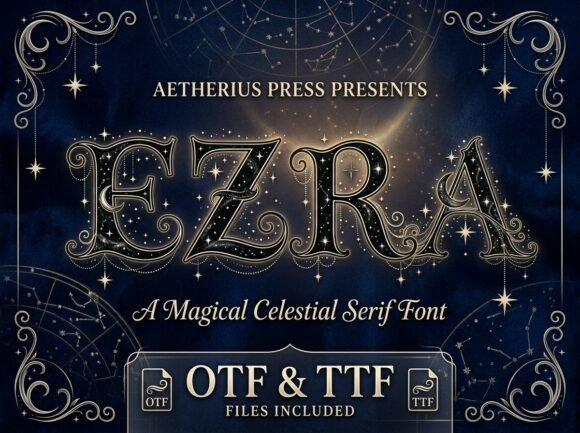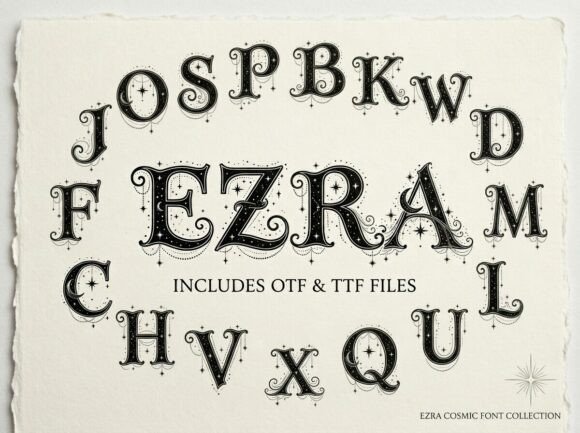
Harness the Magic of the Cosmos with Ezra Font
Are you a designer, craftsperson, or spiritual entrepreneur looking for a unique and captivating font to elevate your brand or project? Look no further than Ezra, a premium celestial star alphabet that embodies the mystery and wonder of the universe. This enchanting typeface is specifically designed for divination, mystical branding, and high-end invitations, making it the perfect choice for professional tarot decks, independent astrology apps, mystical jewelry packaging, and atmospheric logo designs.
The Celestial Inspiration Behind Ezra
Ezra’s design is inspired by the night sky, with classic, elegant letterforms filled with a deep midnight-blue “starry sky” texture. The font’s texture is reminiscent of a clear evening sky, twinkling with stars and constellations. The letterforms themselves are carefully crafted to evoke a sense of mysticism and wonder, with intricate linework and subtle nuances that give the font a sense of depth and dimensionality.
Unique Features of Ezra Font
Ezra’s unique features set it apart from other fonts on the market. Some of its key characteristics include:
- Hand-drawn constellations: Each letterform features hand-drawn constellations that add an extra layer of magic and mystery to the font.
- Crescent moons and shimmering stardust: Delicate crescent moons and shimmering stardust accents add a touch of whimsy and wonder to the font.
- Ethereal glow: Ezra’s font has an ethereal glow that seems to shimmer and shine on the page.
- Intricate linework: The font’s intricate linework gives it a sense of depth and dimensionality, making it perfect for high-end designs.
Perfect for Mystical and Spiritual Projects
Ezra is specifically designed for projects that require a touch of mysticism and wonder. Some examples of projects that Ezra is well-suited for include:
- Professional tarot decks: Ezra’s celestial inspiration and mystical vibe make it a perfect fit for professional tarot decks and other forms of divination.
- Independent astrology apps: Ezra’s elegant and sophisticated design makes it a great choice for independent astrology apps and other spiritual or mystical projects.
- Mystical jewelry packaging: Ezra’s whimsical and enchanting design makes it perfect for mystical jewelry packaging and other luxury items.
- Atmospheric logo designs: Ezra’s unique features and celestial inspiration make it a great choice for atmospheric logo designs and branding projects.
Why Choose Ezra Font?
So why choose Ezra font for your next project? Here are just a few reasons:
- Unique and captivating design: Ezra’s design is unlike anything else on the market, making it a great choice for designers and craftspersons looking to stand out.
- High-end quality: Ezra’s intricate linework and elegant letterforms make it a high-end font that’s perfect for luxury projects.
- Versatile: Ezra can be used for a wide range of projects, from tarot decks to logo designs.
- Easily readable: Despite its intricate design, Ezra is easily readable, making it perfect for body text and headlines.
Get Ready to Harness the Magic of the Cosmos